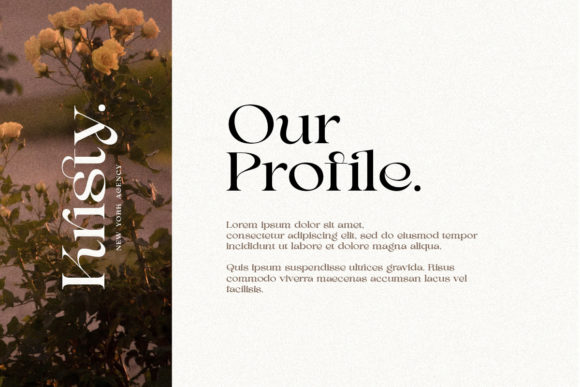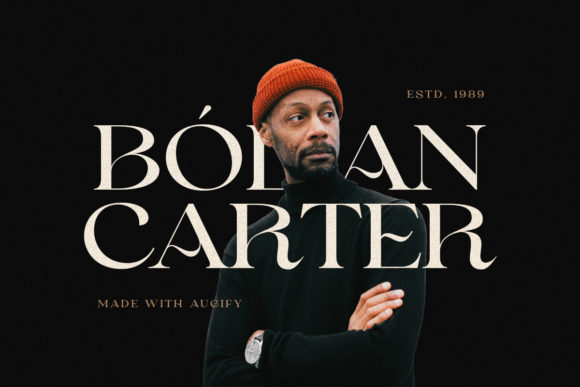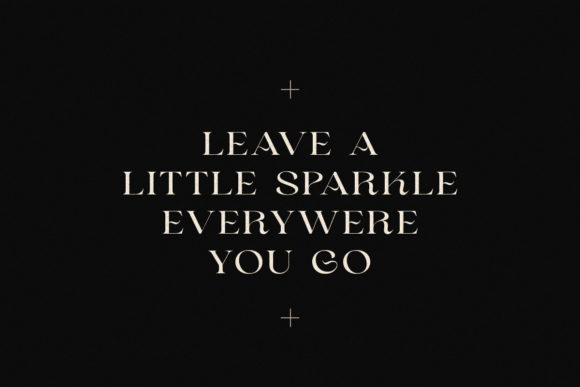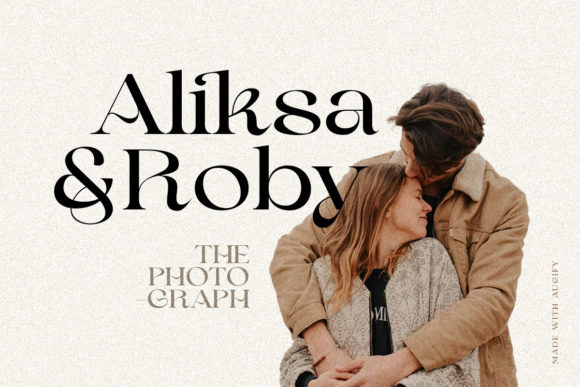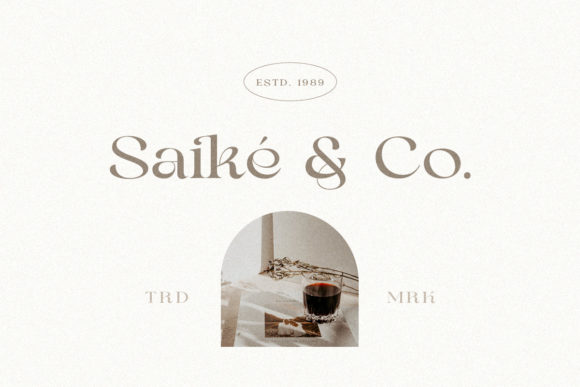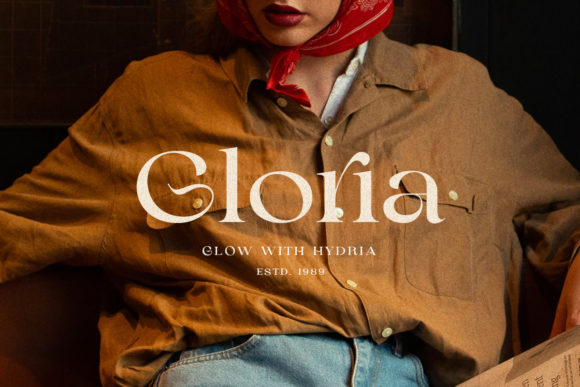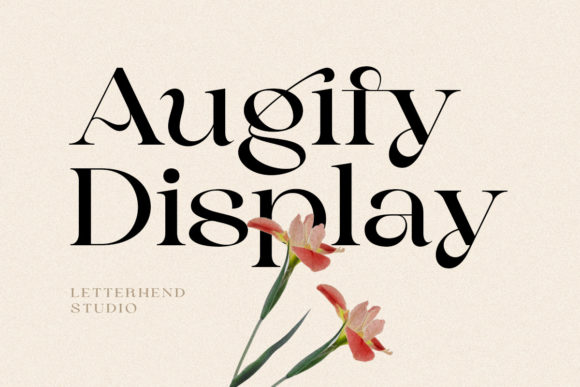
The Designer’s Delight: Uncovering the Elegance of Augify Font
Have you ever been in the middle of a design project, pouring your heart and soul into it, only to hit a creative roadblock because of one thing: the font? I certainly have. It was a typical Wednesday evening when I was working on a branding project for a luxury client, and I just couldn’t seem to find the right typeface that exuded sophistication and elegance. That’s when I stumbled upon Augify Font, and let me tell you, it was love at first sight! 💕
A Personal Review: The Good, the Great, and the Quirks
What I Love About Augify Font
- ✨ Sophisticated serif design that instantly elevates any project
- ✅ Unique letterform that sets it apart from more traditional serif fonts
- 🔥 Beautiful ligatures that add a touch of elegance and creativity to your text
- 🌈 Versatility – perfect for headlines, taglines, or any text that needs a bit of flair
While Augify Font is a stunning addition to any design project, there are a few things to keep in mind:
- ⚠️ Some ligatures might not display correctly in older software or browsers, so it’s essential to test your design across different platforms.
- 🤔 Learning curve for those new to OpenType features and glyphs, but trust me, it’s worth the exploration!
The Story Behind Augify Font
Augify Font was created with the designer in mind – someone who craves uniqueness and elegance in their typography. Inspired by classic serif fonts but infused with modern flair, Augify aims to bring a touch of sophistication to any project. Whether it’s a luxury brand or a personal craft project, Augify Font is designed to make your text stand out.
Q: What makes Augify Font unique?
A: Augify Font boasts a sophisticated serif design with a unique letterform and beautiful ligatures, making it perfect for standout headlines and elegant taglines.
Q: Is Augify Font suitable for body text?
A: While Augify Font is stunning for headlines and titles, its readability for long body text may vary. It’s recommended to test it in your specific design context.
Q: Does Augify Font support OpenType features?
A: Yes, Augify Font supports OpenType features, including ligatures and stylistic alternates, allowing for a high degree of customization and creativity in your designs.